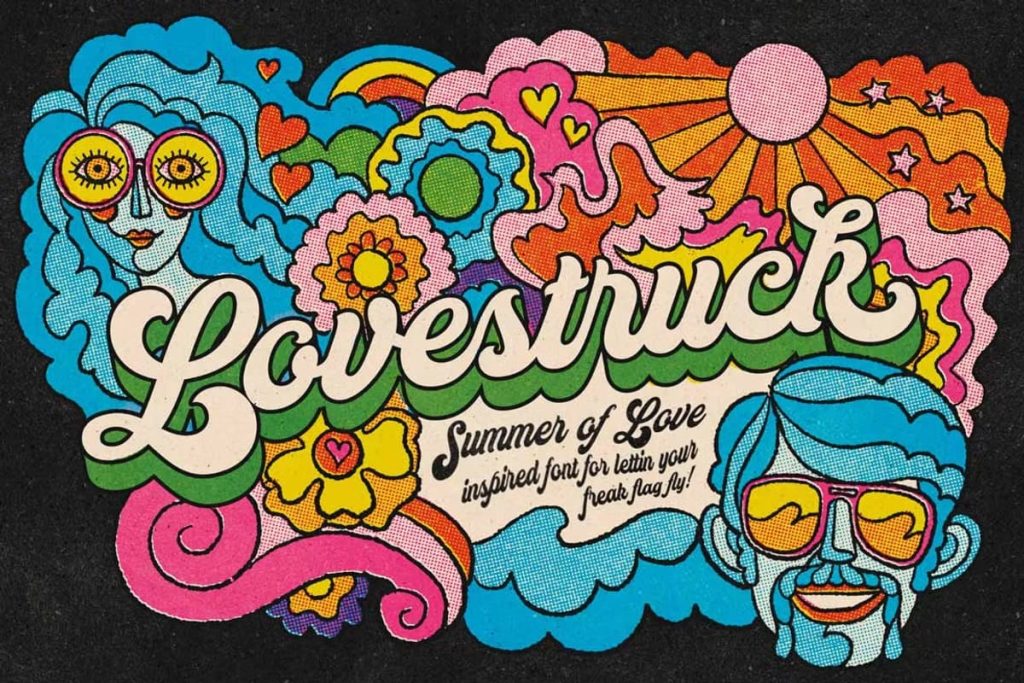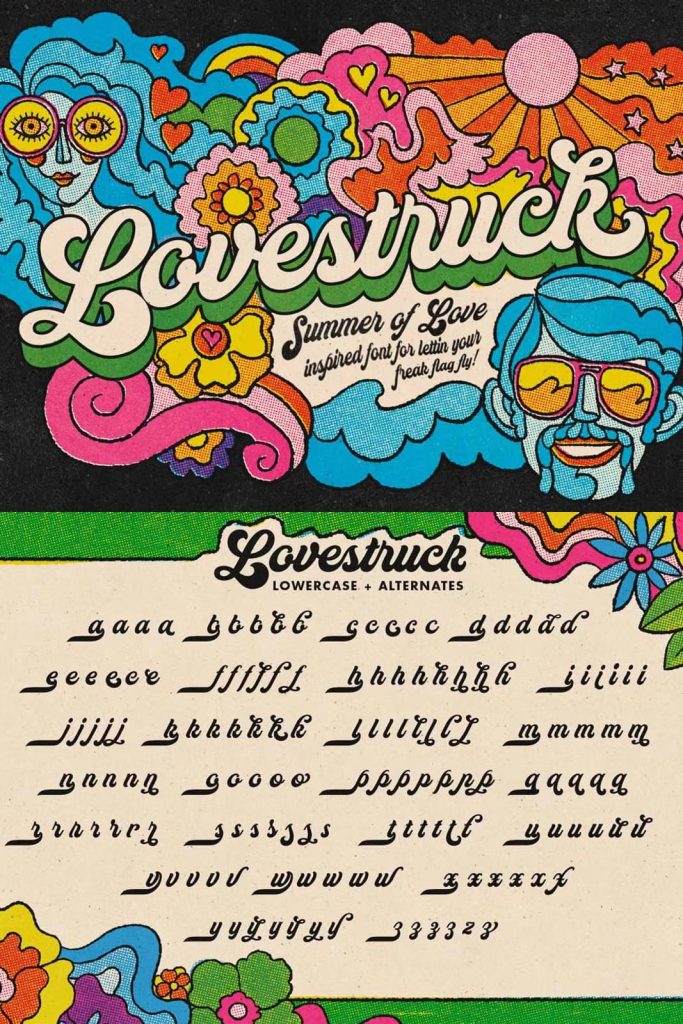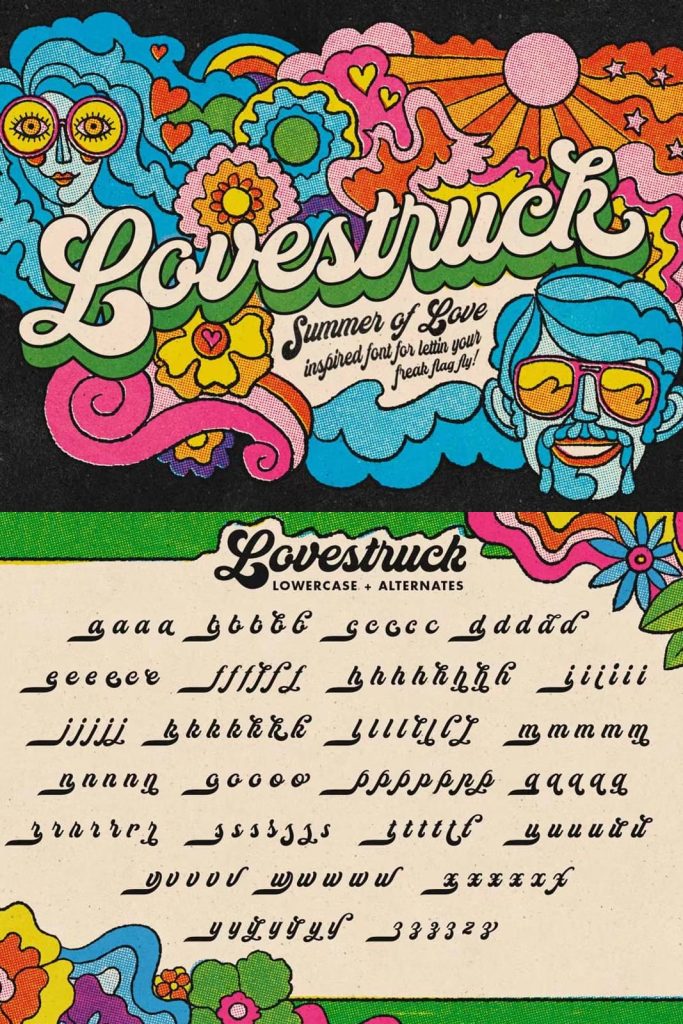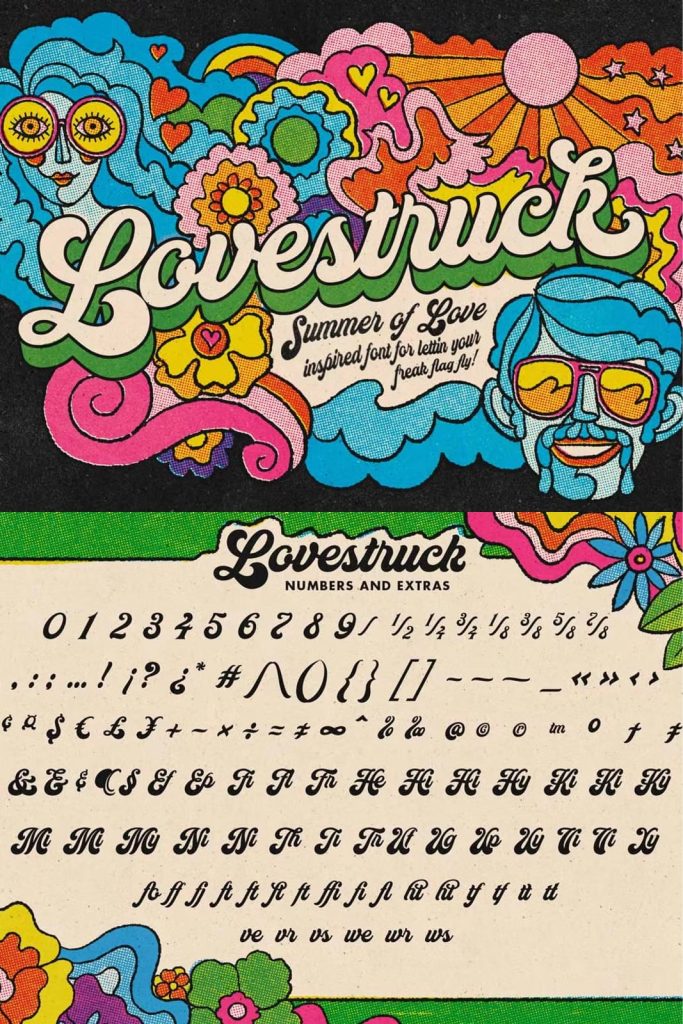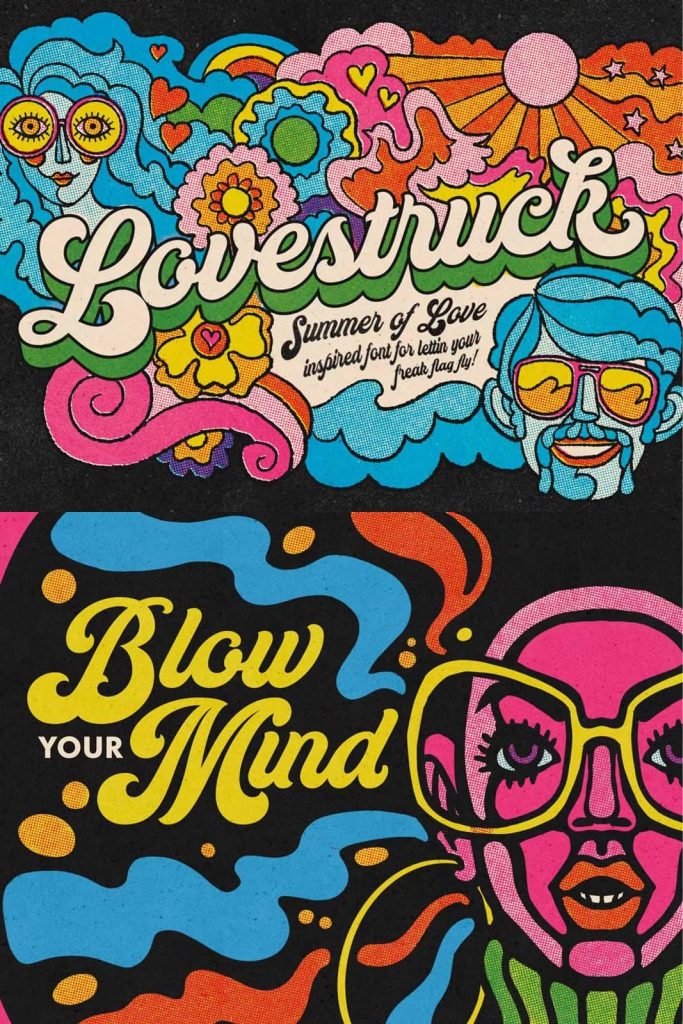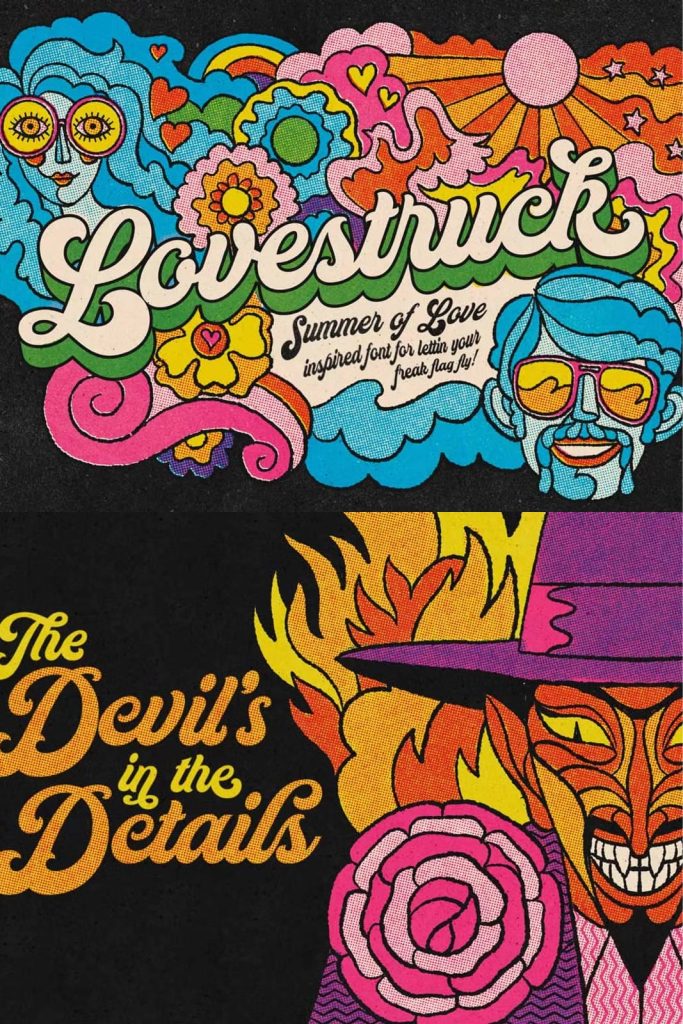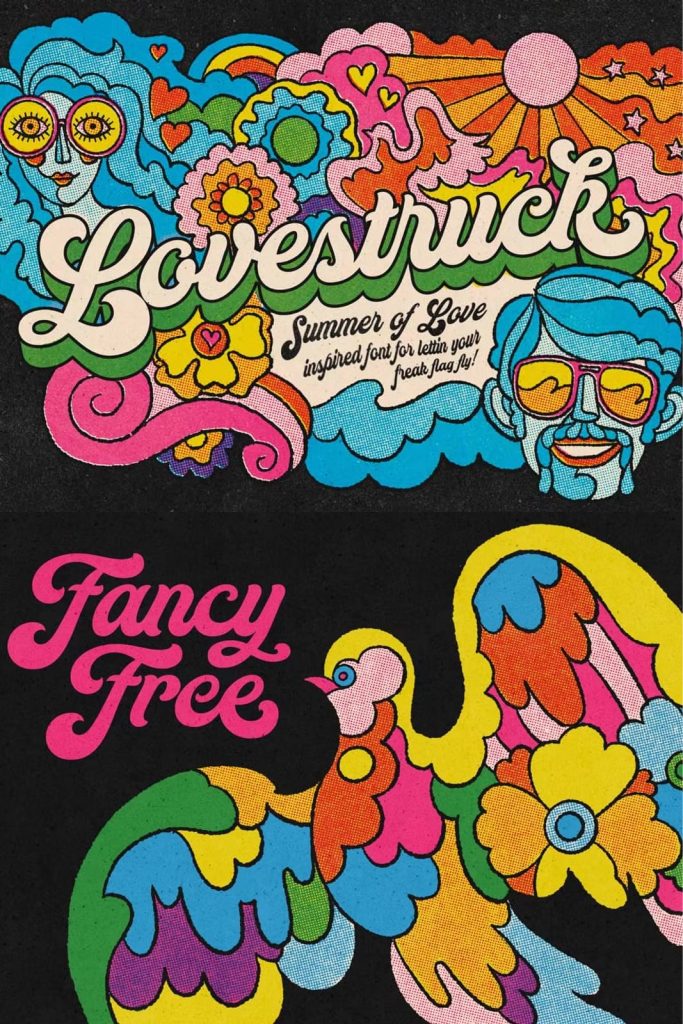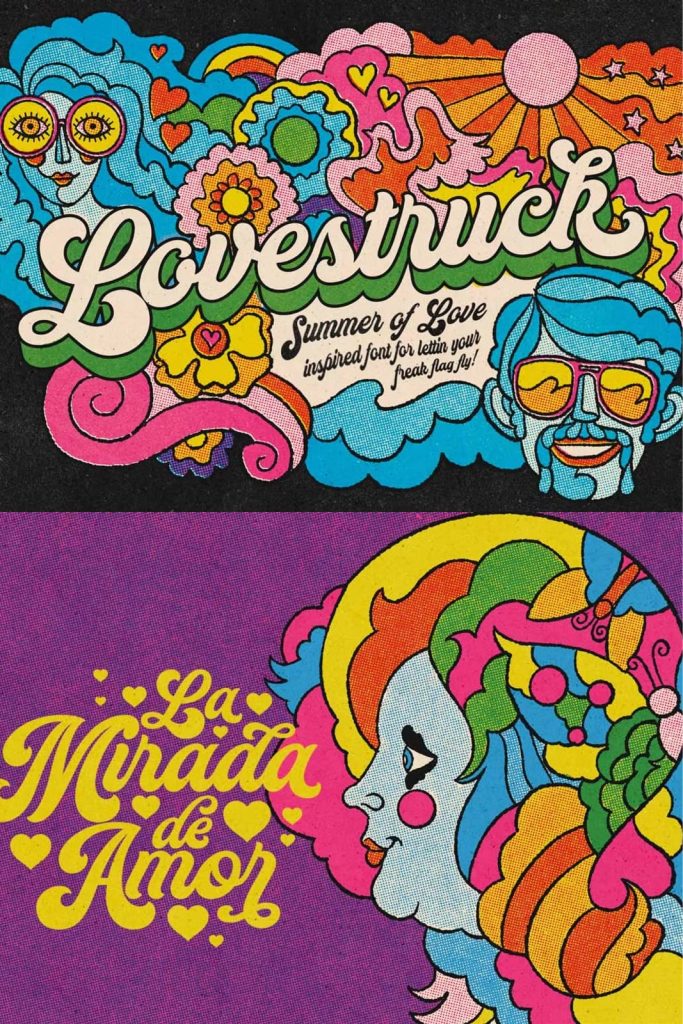
Lovestruck is a script font inspired by the flowy freeform lettering of the 60s and 70s.
With roots in the luxurious details of the Art Nouveau movement and bold flourishes found in psychedelic culture, you’re sure to capture vintage magic with this new script font.
Plus, we built this font using OpenType features so it automatically adjusts to fit perfectly within your design layout. No fussing around with tracking values or kerning pairs needed!